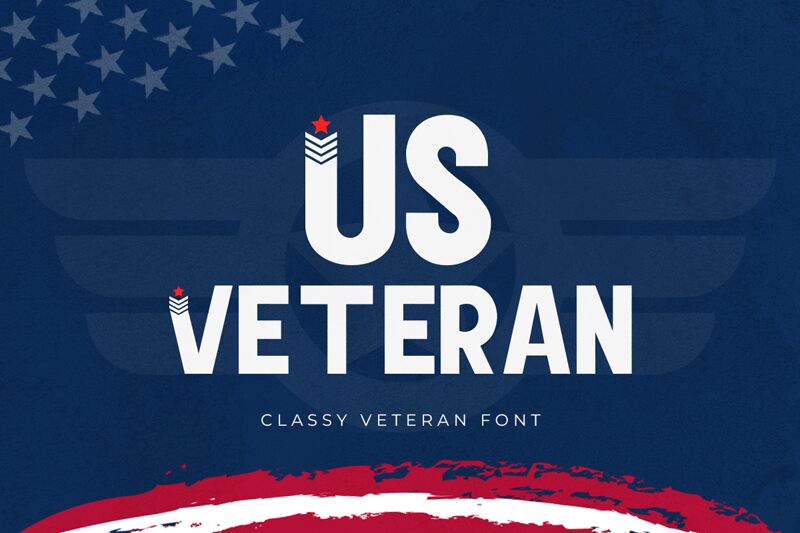
US Veteran
US Veteran, a robust typeface designed by Kong Font, exudes the strength and discipline associated with military aesthetics. With its bold weight and semi-condensed width, this display font commands attention and conveys authority. The decorative elements incorporated within US Veteran are reminiscent of insignias found in military designs, making it an ideal choice for projects that require a touch of valor and honor.
The font's sharp angles and sturdy lines offer a contemporary take on classic military typography. Its style is both striking and functional, ensuring legibility while making a powerful visual impact. This makes US Veteran particularly suitable for branding, logos, posters, apparel design, and any creative endeavor that seeks to evoke the spirit of service and dedication.
Embrace the distinct character of US Veteran for a design that stands out with precision and pride. Whether you're aiming to capture the essence of military heritage or simply looking for a typeface with grit and fortitude, US Veteran rises to the occasion with unwavering confidence.